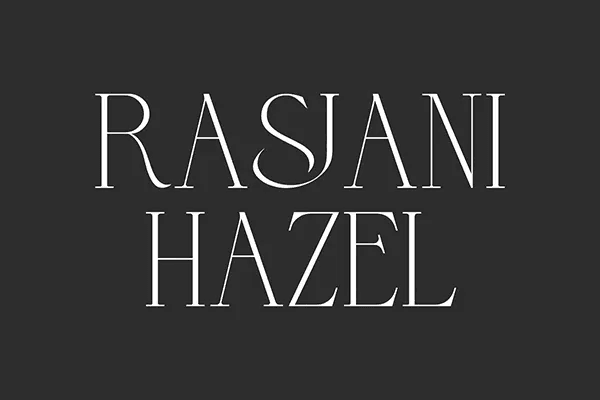
Rasjani Hazel Font is a serif display font that brings the perfect combination of classic elegance and a modern. With its sleek character, this typeface displays a clean, luxurious design and is full of aesthetic refinement. This font will be perfect for any project, can be used for advertising, brand image, custom design, invitation, label, layout design, quotes, stationery, template design, website, and more!